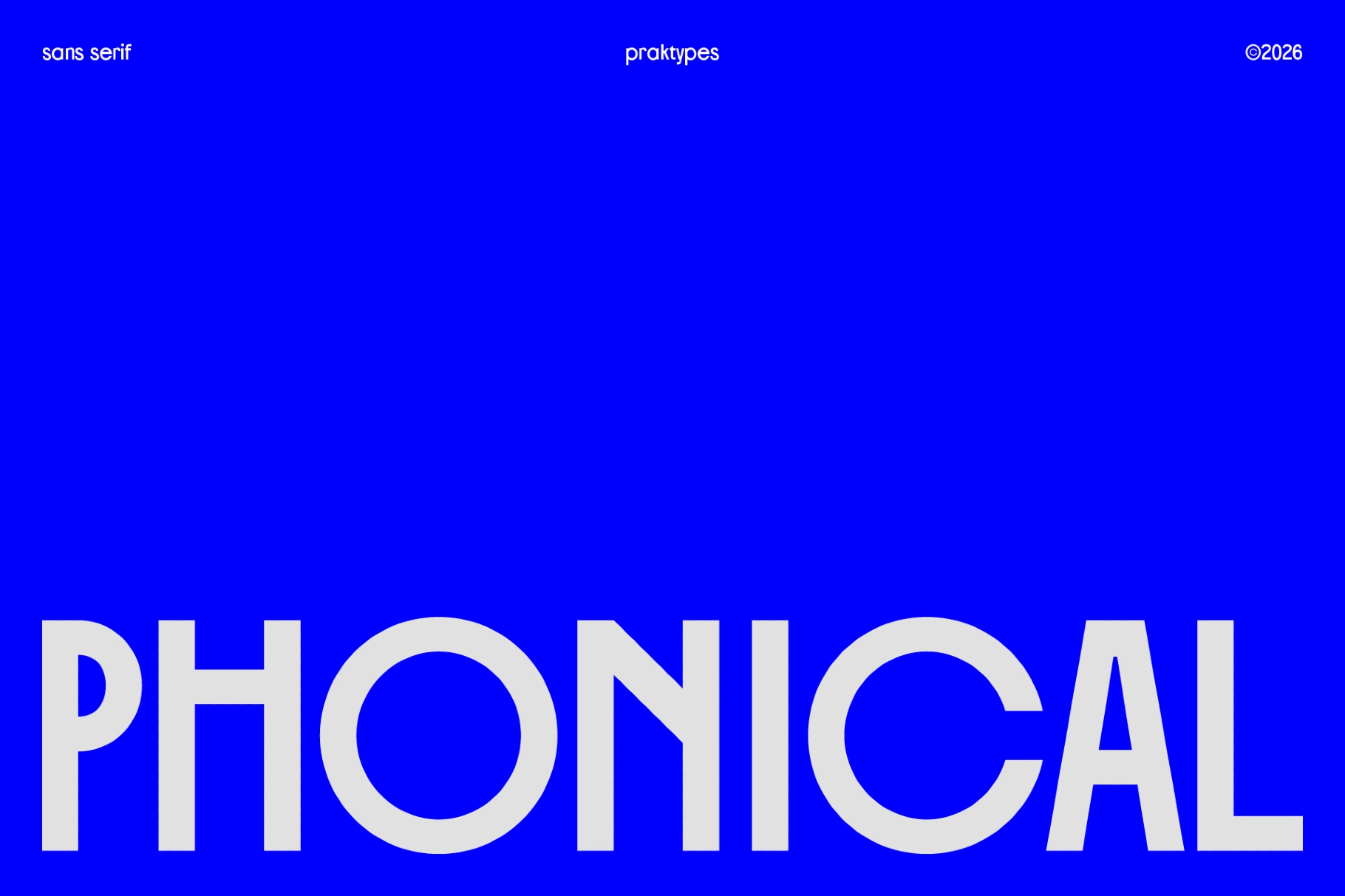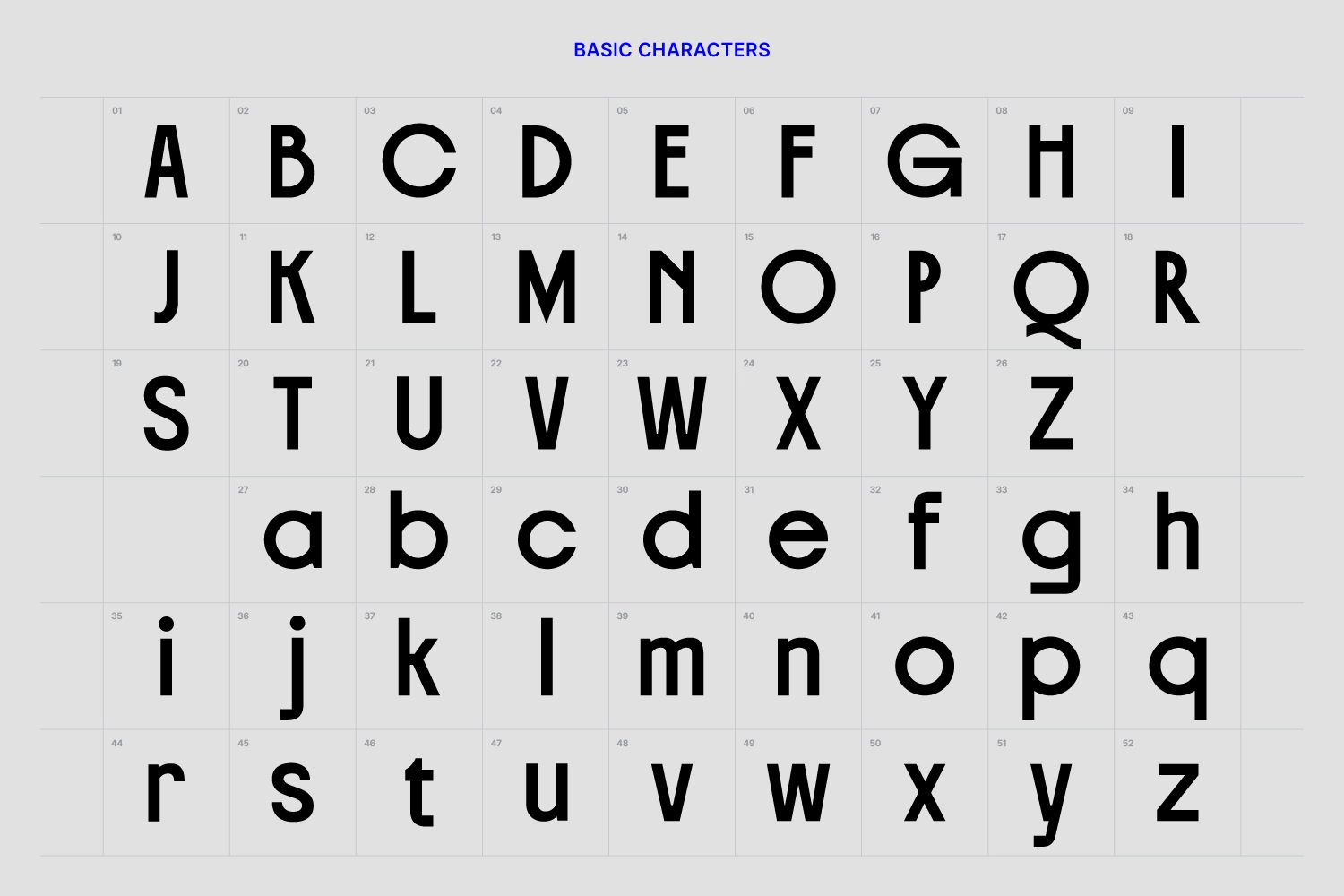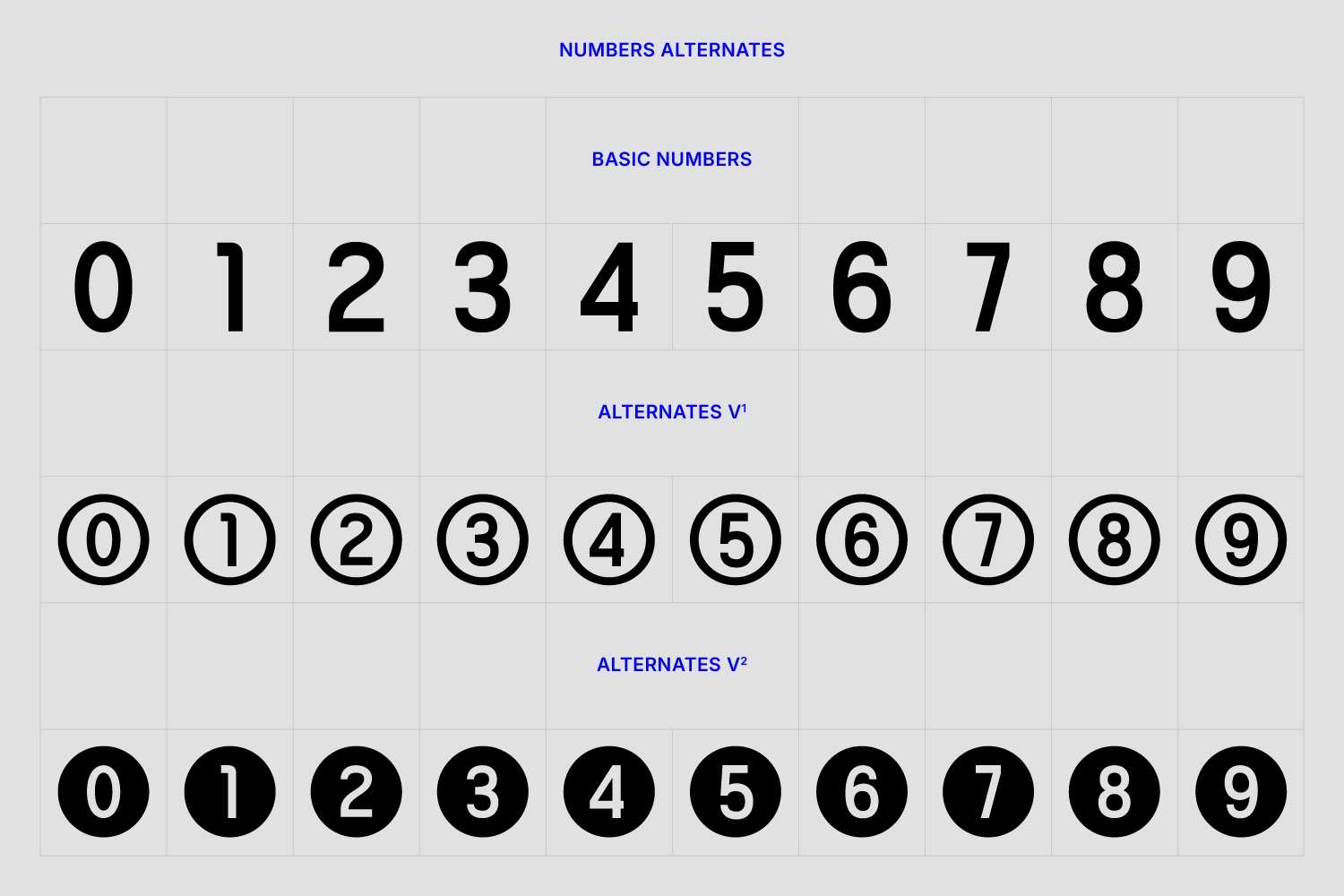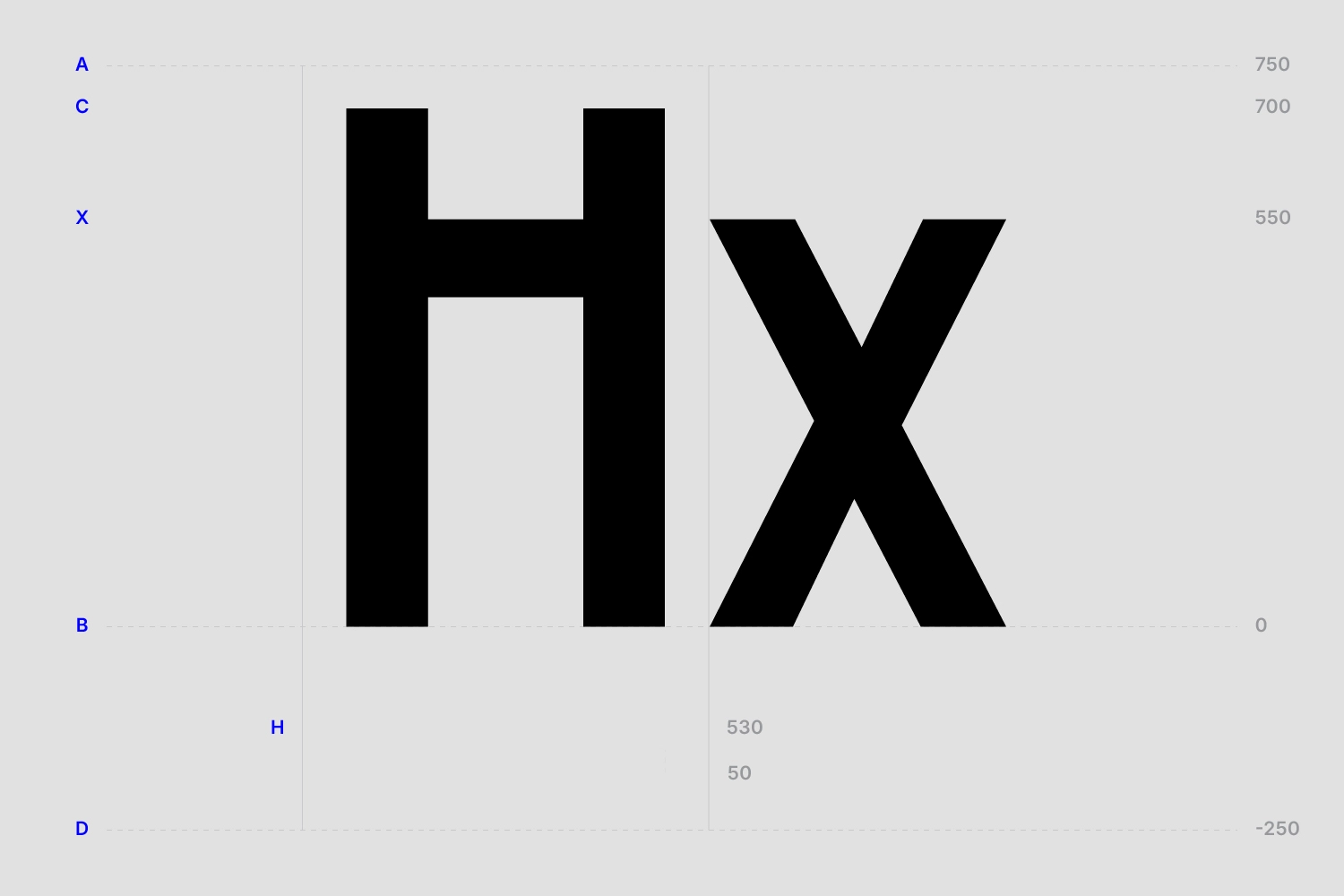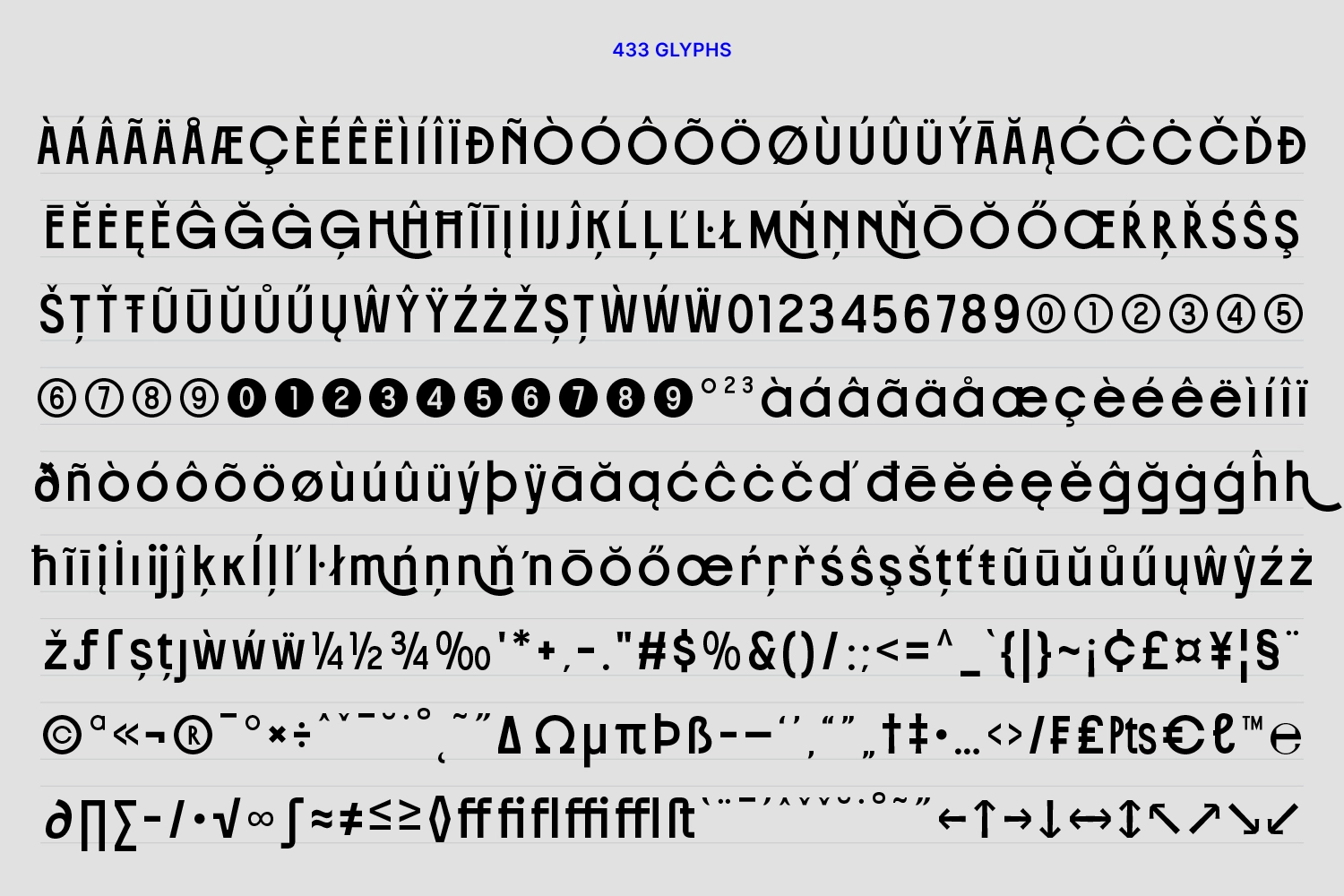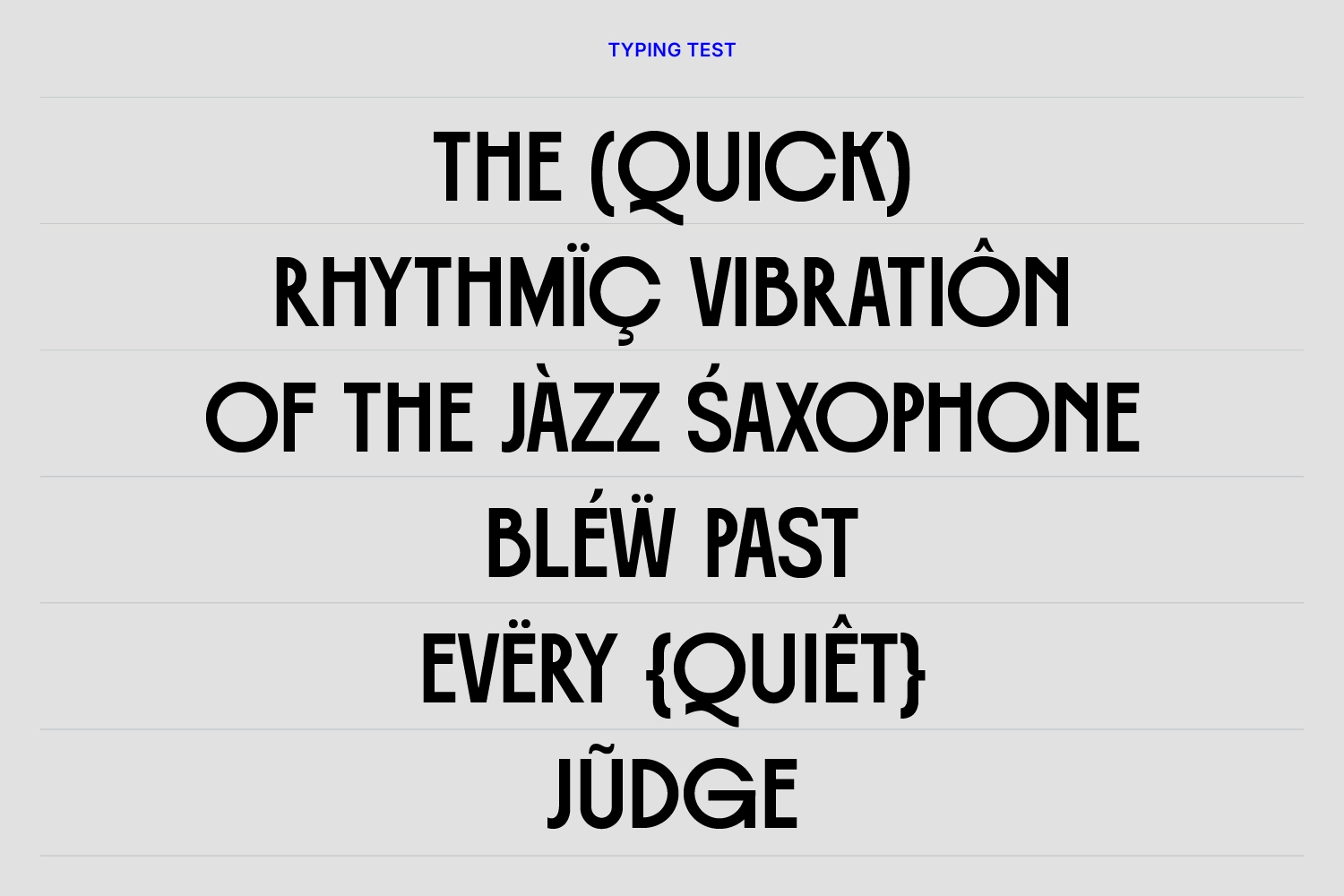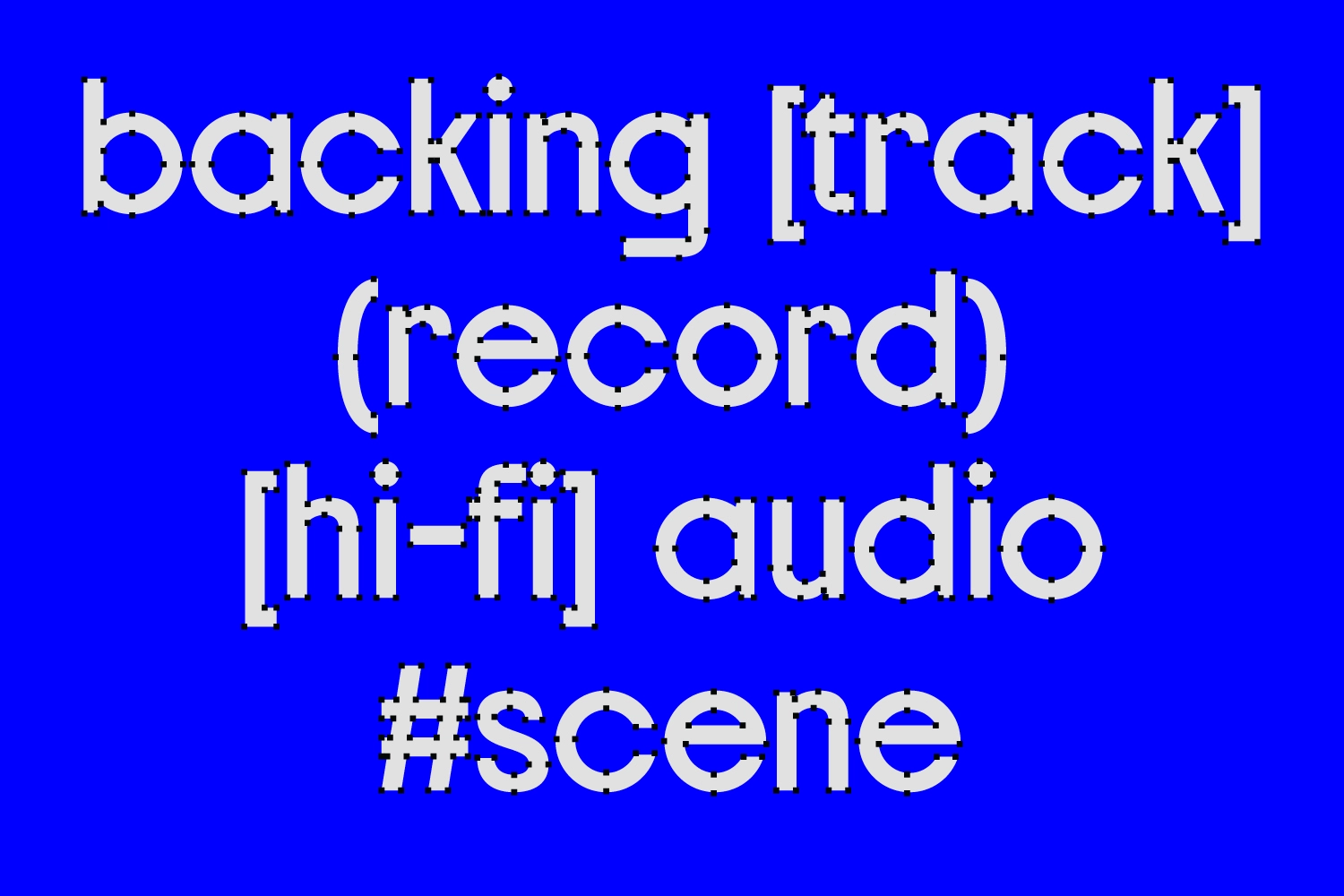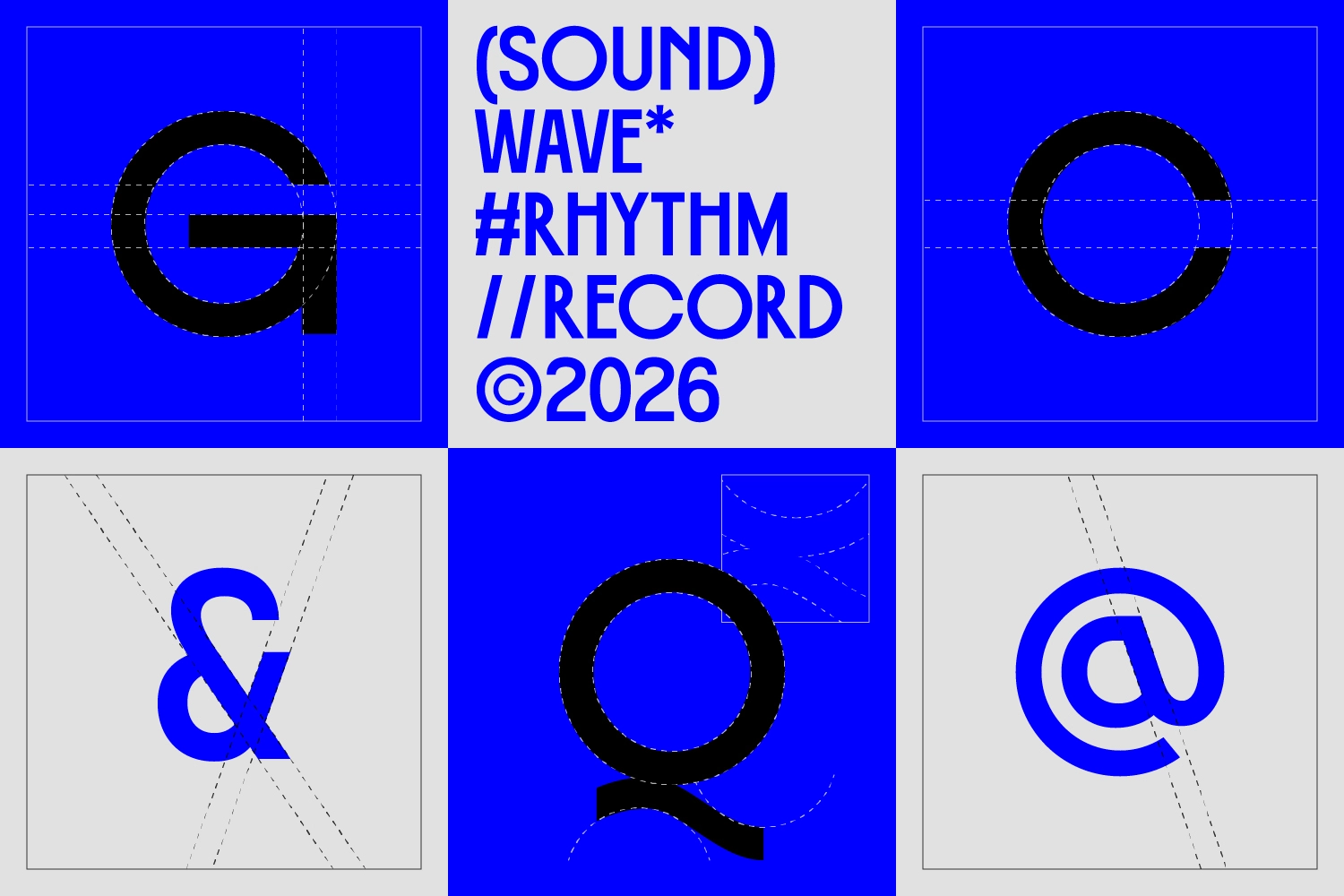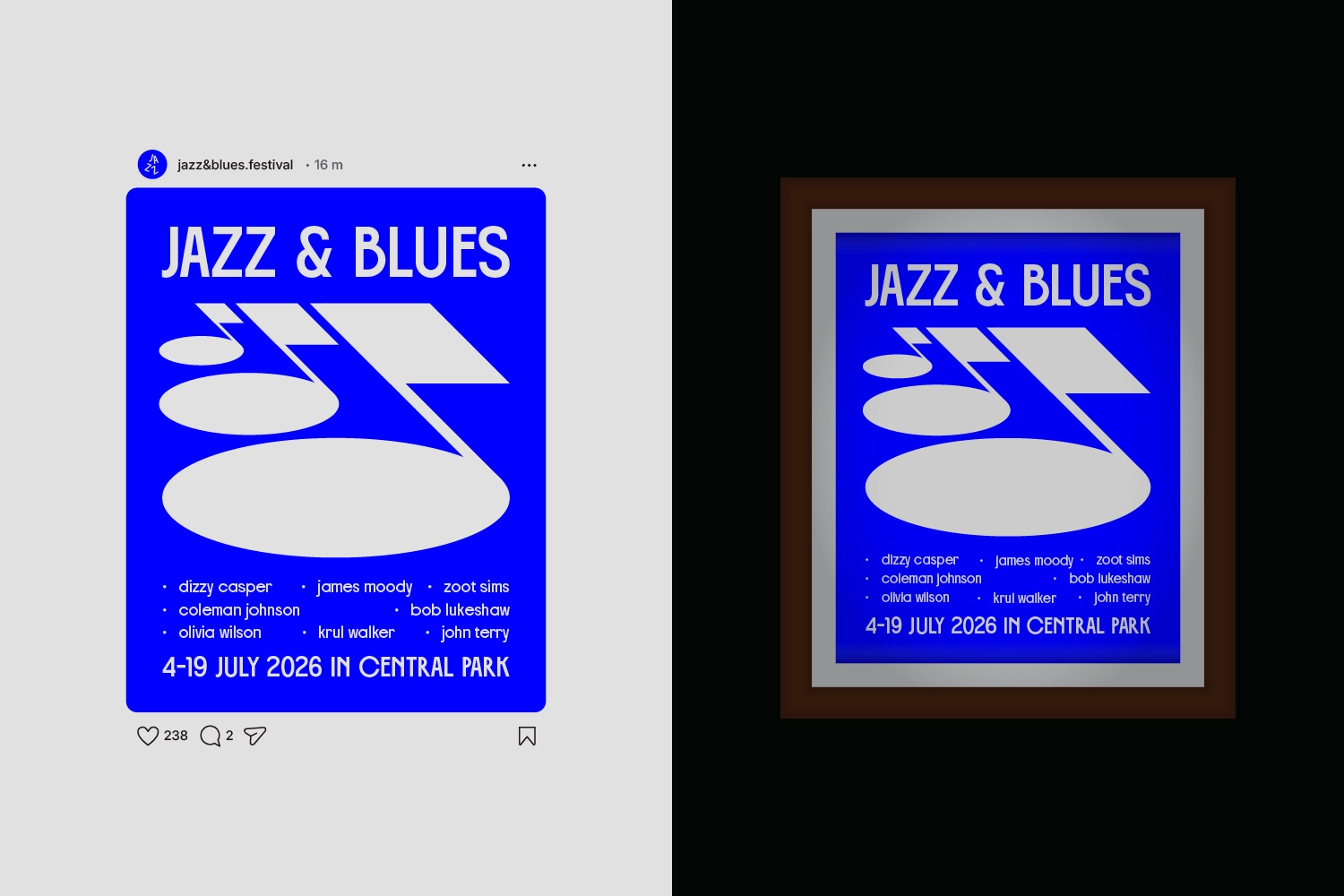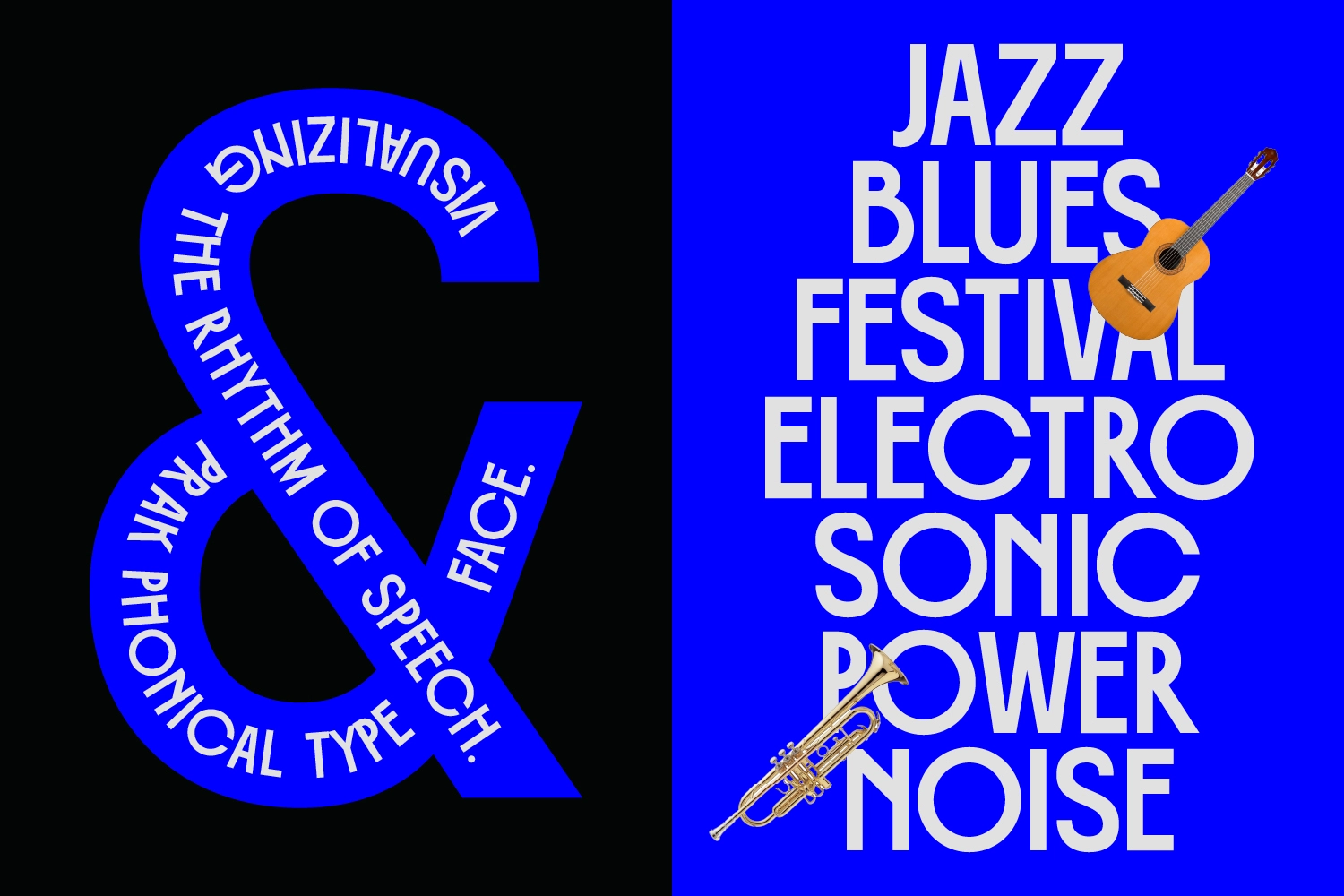
PRAK Phonical - Modern Sans Display Font
PRAK Phonical
This geometric display font is tall, bold, and sharply composed, with heavy vertical strokes set against clean circular forms. Its strong proportions and tight visual logic make it ideal for editorial headlines, identity systems, posters, and brand work that needs crisp authority without decorative noise.
PRAK is built for luxury logos, architecture magazines, fashion lookbooks, music festival posters, gallery graphics, packaging, web headers, social media campaigns, exhibition titles, campaign visuals, and large-scale typographic layouts. The alternate number sets add a graphic-system quality, giving designers extra options for dates, labels, counters, badges, and rhythm-led compositions.
- 433 glyphs
- Number alternates